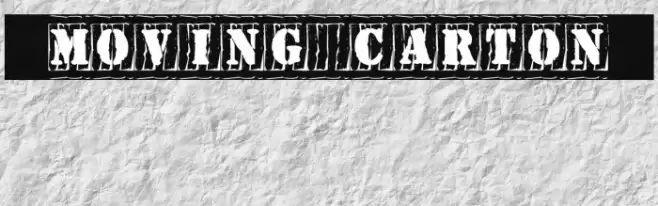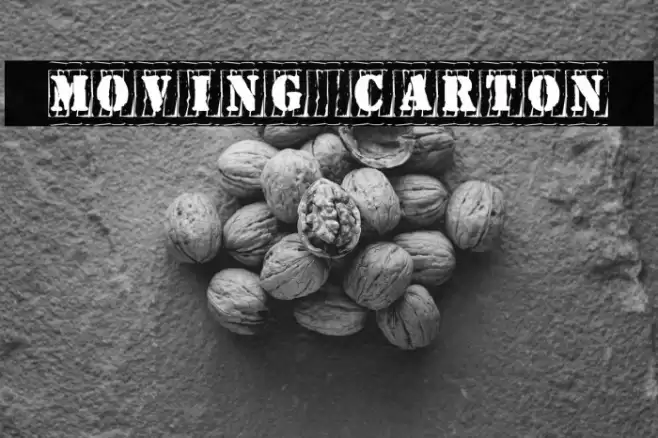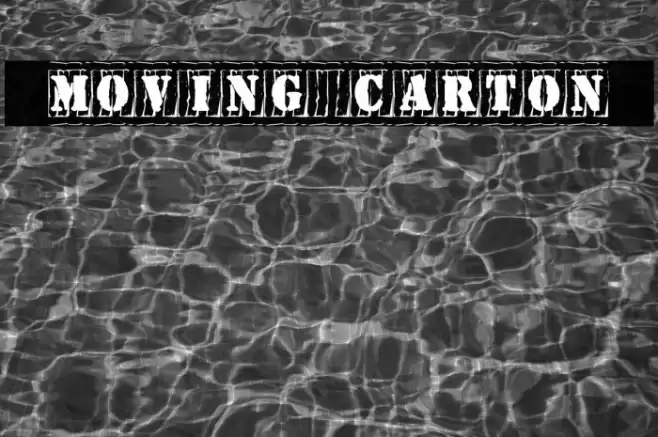
[Moving_Carton] Font
This font features a rugged, distressed style that mimics the appearance of letters stamped on a moving carton. Each character is enclosed in a rectangular border with a rough, hand-drawn effect, adding to its rustic charm. The bold, uppercase letters have a strong presence, making them ideal for impactful designs. The font's unique texture and uneven lines give it a handcrafted feel, perfect for projects that require a touch of authenticity and vintage appeal. The characters are tightly spaced, enhancing the boldness and making it suitable for attention-grabbing headlines or titles.
| Proposed Projects | Ideal for packaging design, vintage-themed posters, branding for artisanal products, or any project needing a rustic, handcrafted look. |